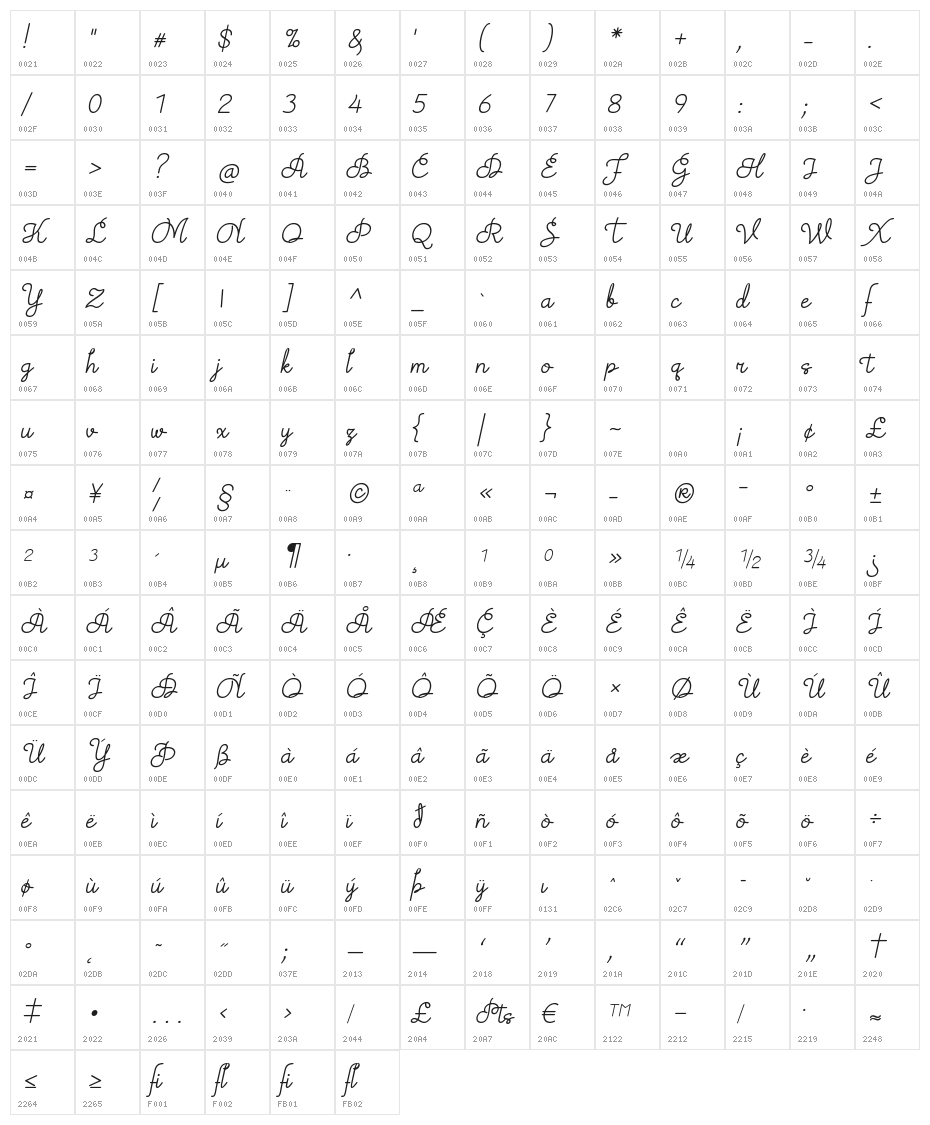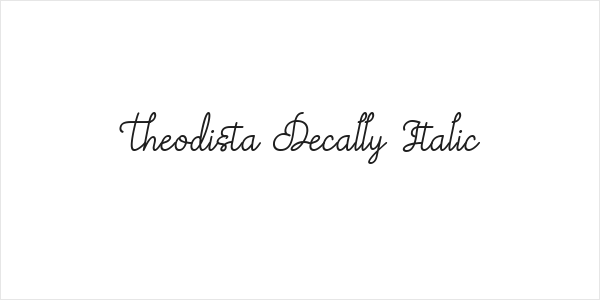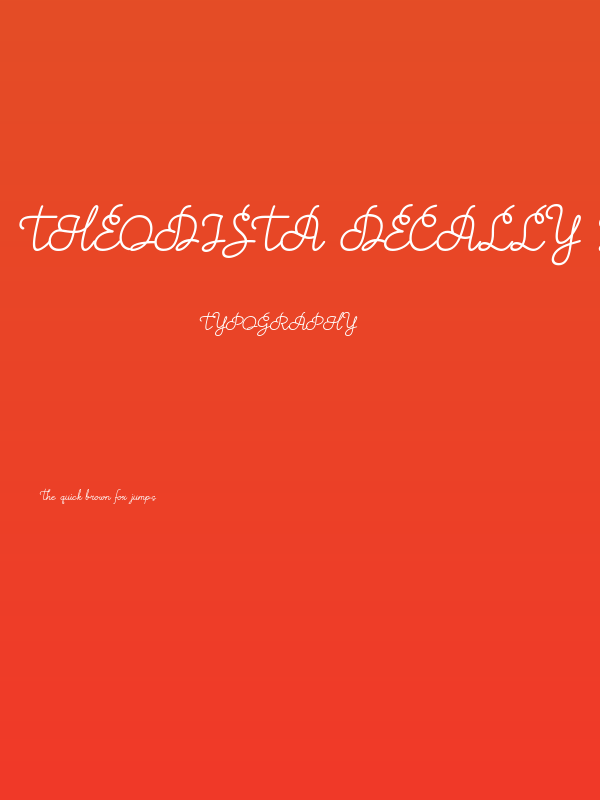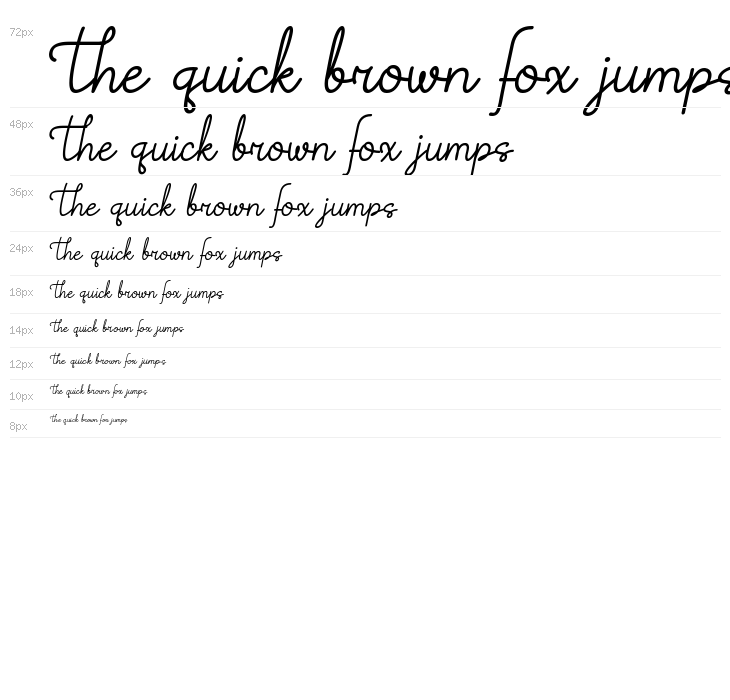
Theodista Decally Italic Font
Theodista Decally Italic Description
This elegant script font features a flowing, cursive style that exudes sophistication and grace. The characters are interconnected with smooth, fluid strokes, creating a seamless and harmonious appearance. The uppercase letters are ornate and decorative, while the lowercase letters maintain a consistent, flowing rhythm. The numerals and special characters are designed with the same attention to detail, ensuring a cohesive look across all elements. This font's italic nature adds a dynamic and lively touch, making it suitable for projects that require a personal and artistic flair.
| Overall Style | Elegant, Artistic |
| Use Case | Logos, Invitations, Personal stationery |
| Proposed Projects | Ideal for wedding invitations, elegant branding, personal stationery, and artistic projects. |